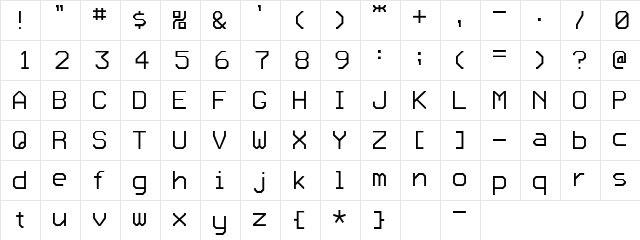
KADO_Kaku Regular
Design Context for KADO_Kaku Typeface
KADO_Kaku takes a measured approach to typography — its balanced proportions and neutral character make it a reliable workhorse for both digital and print work.